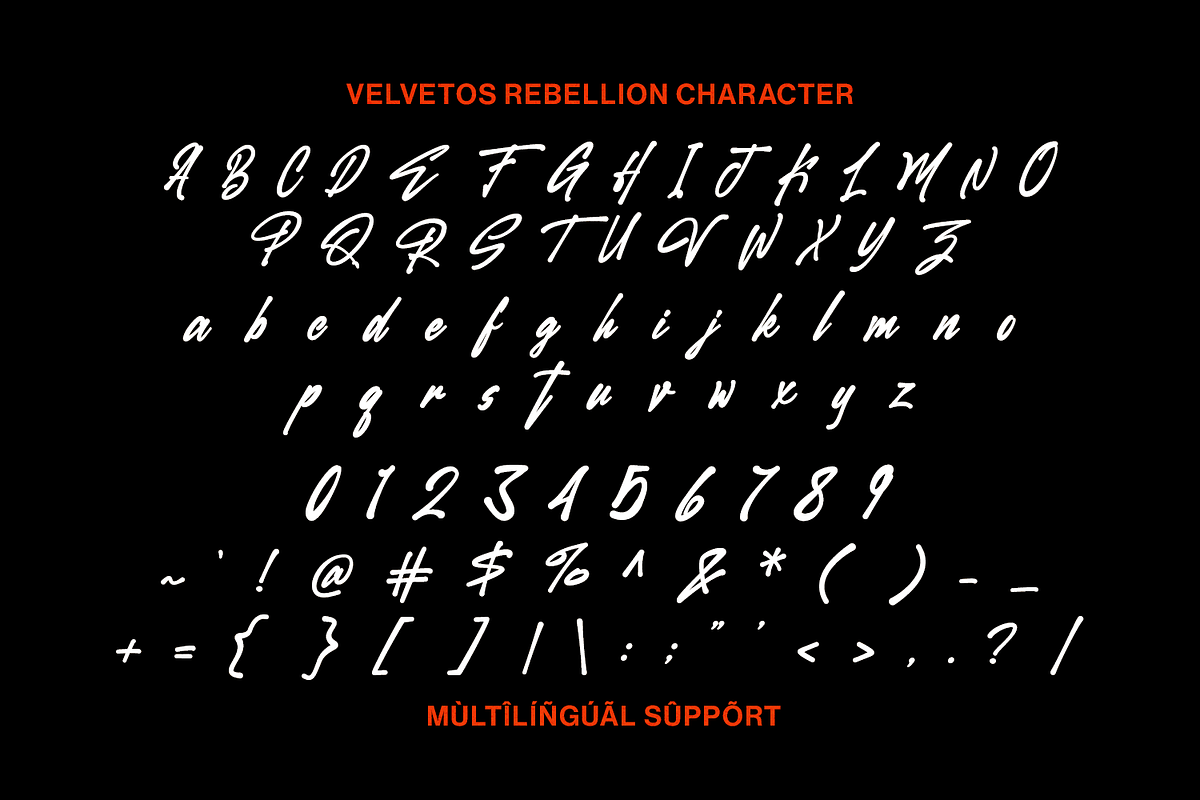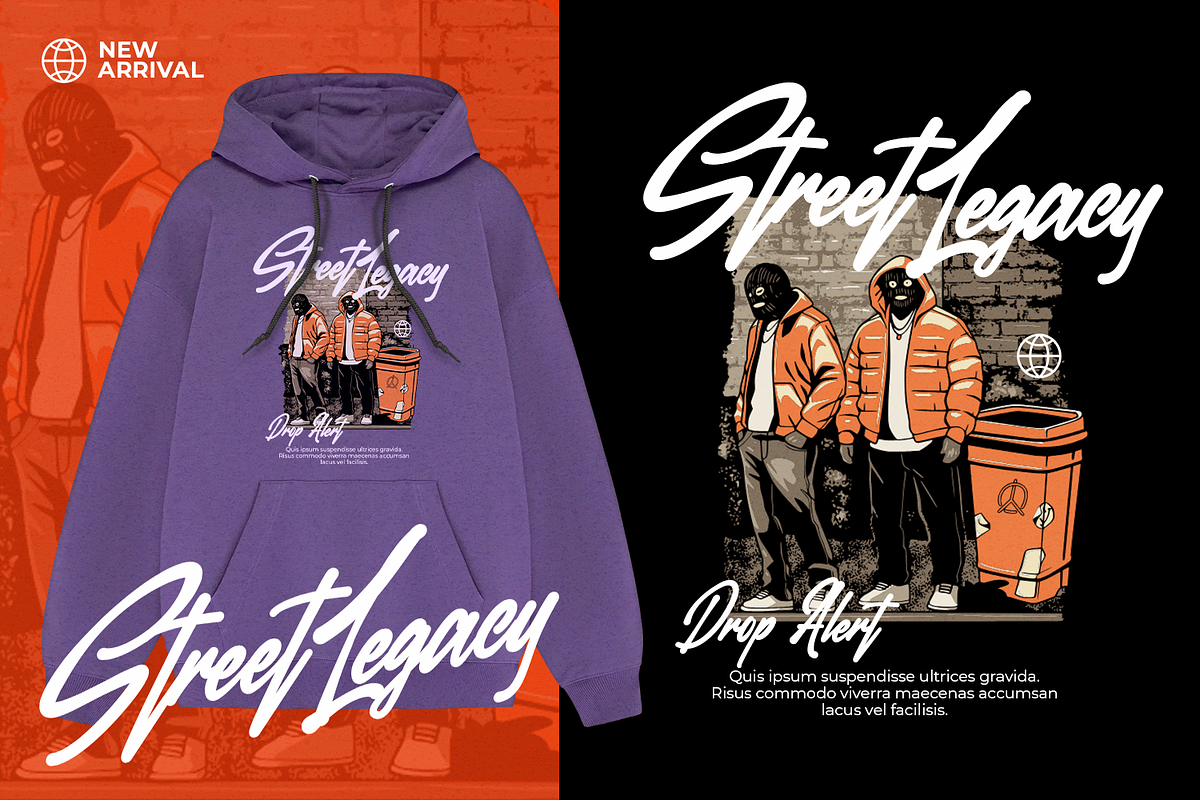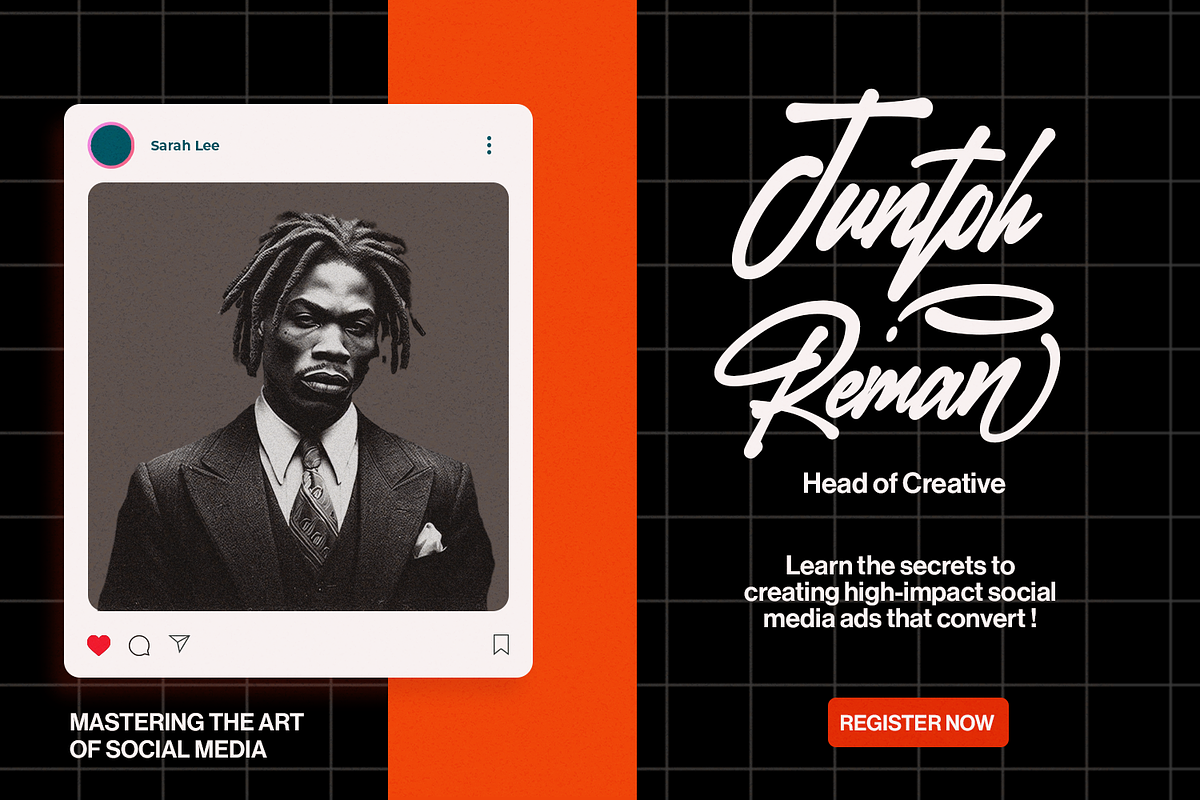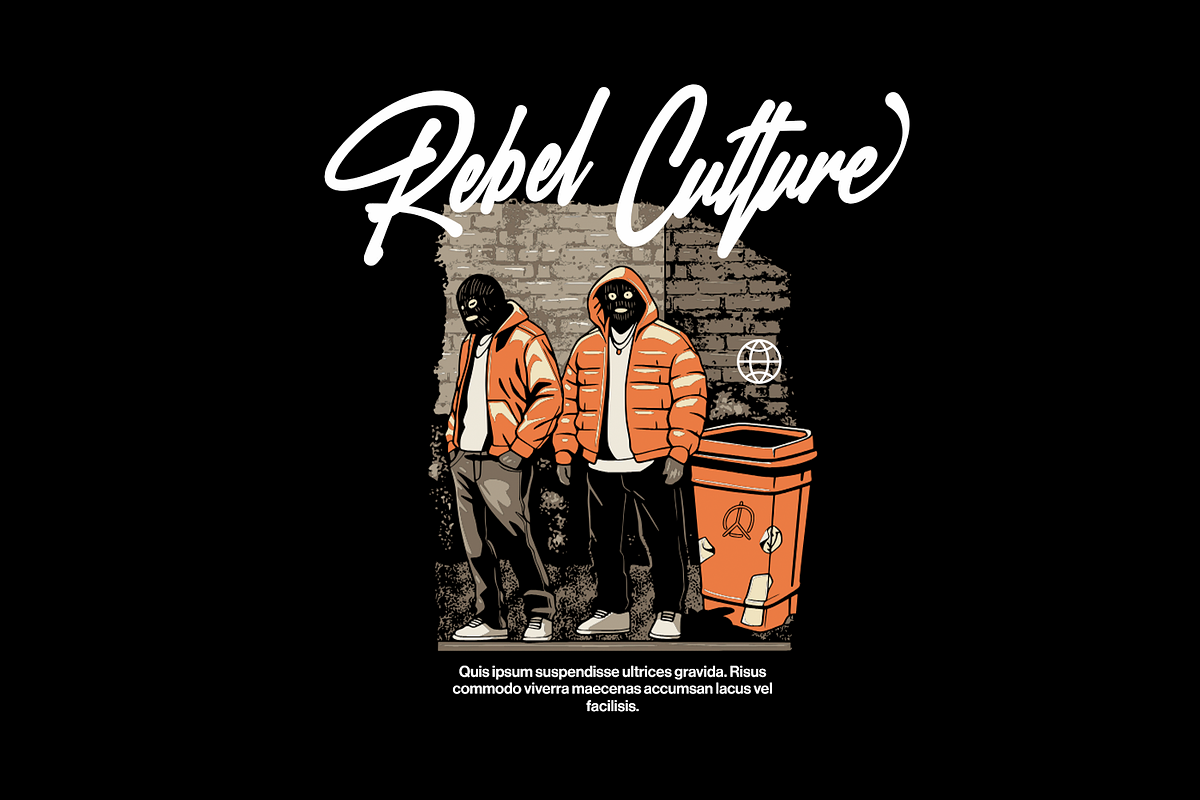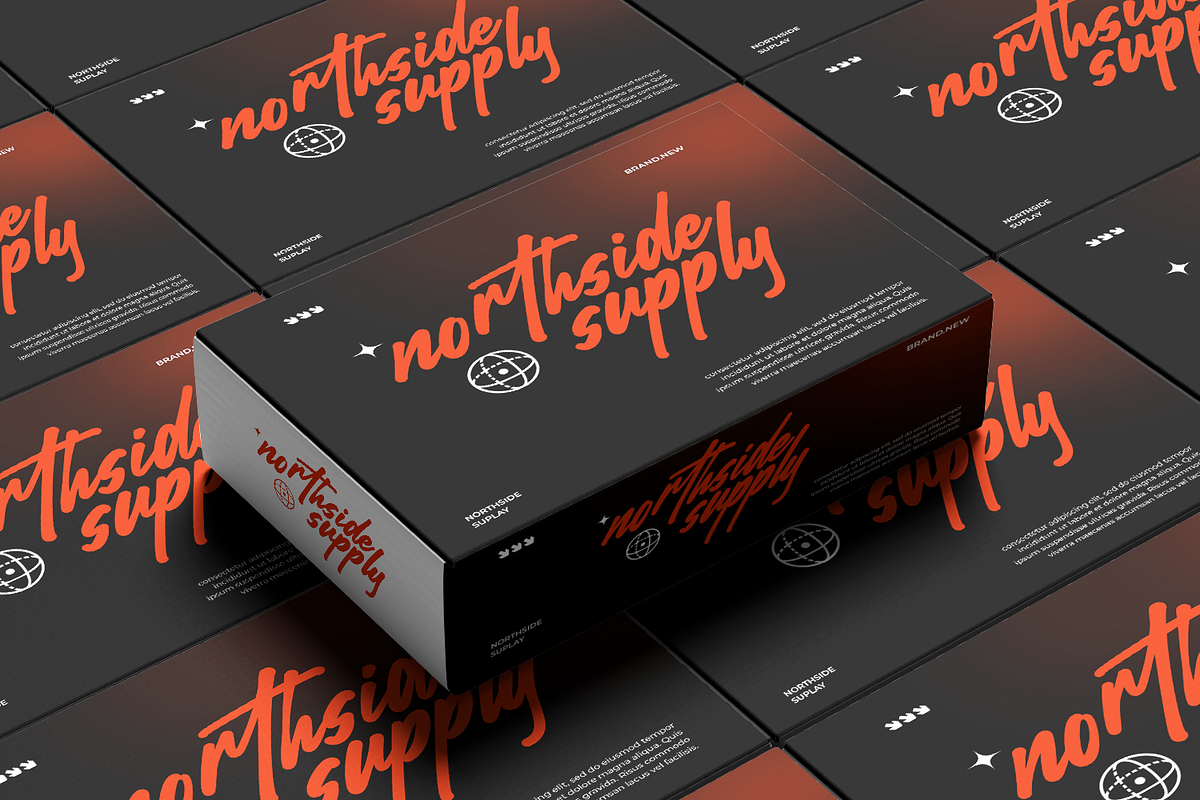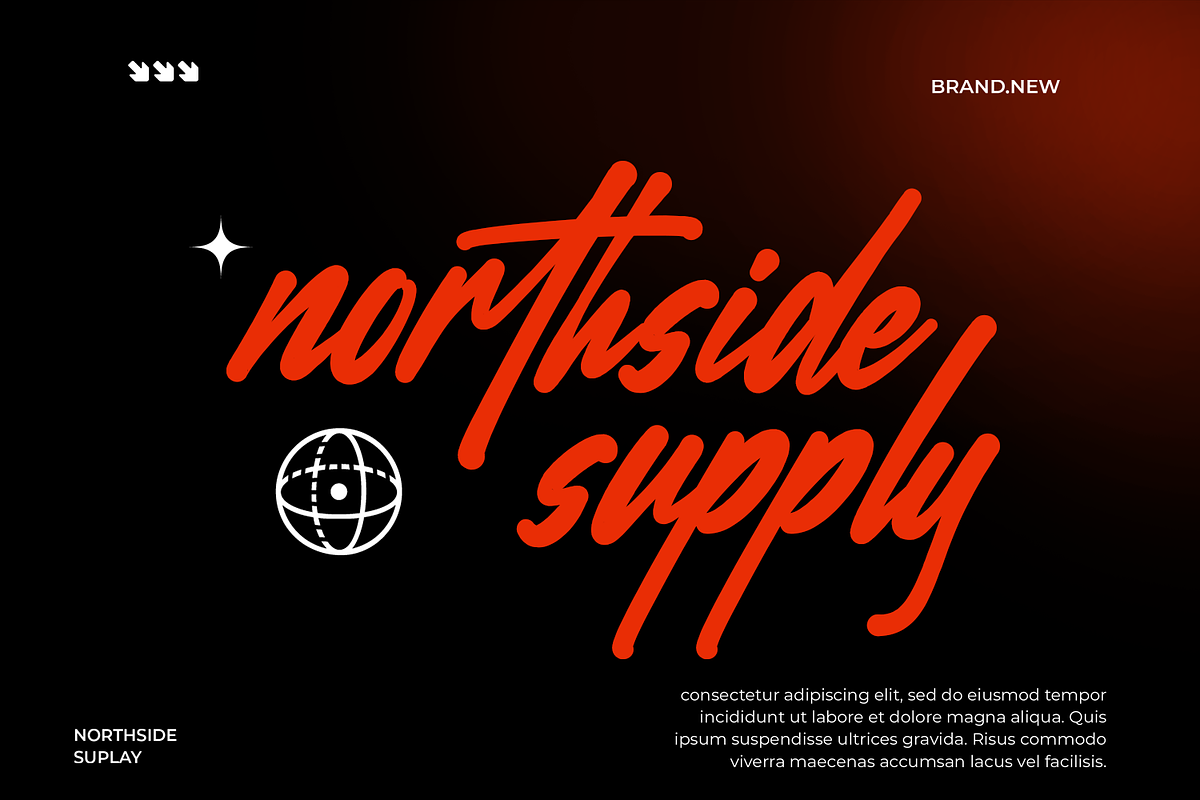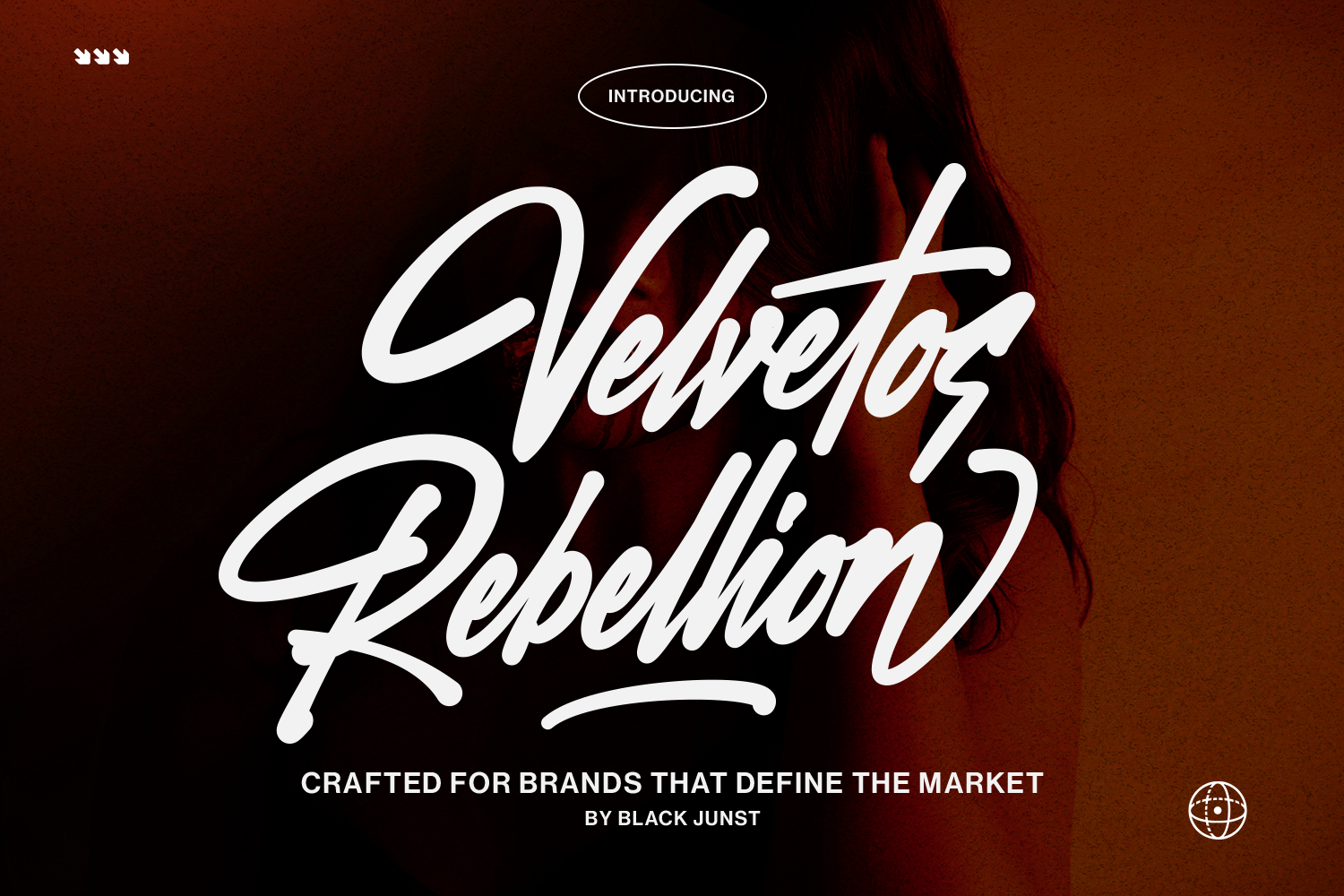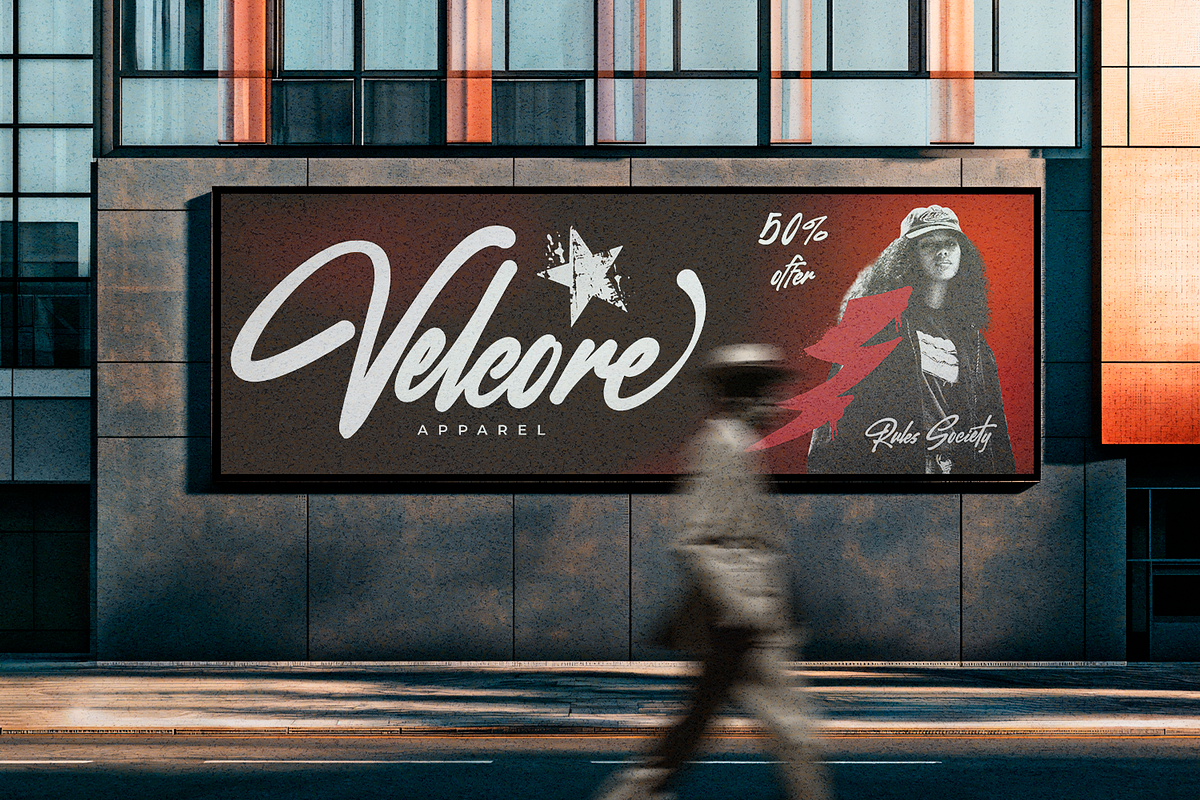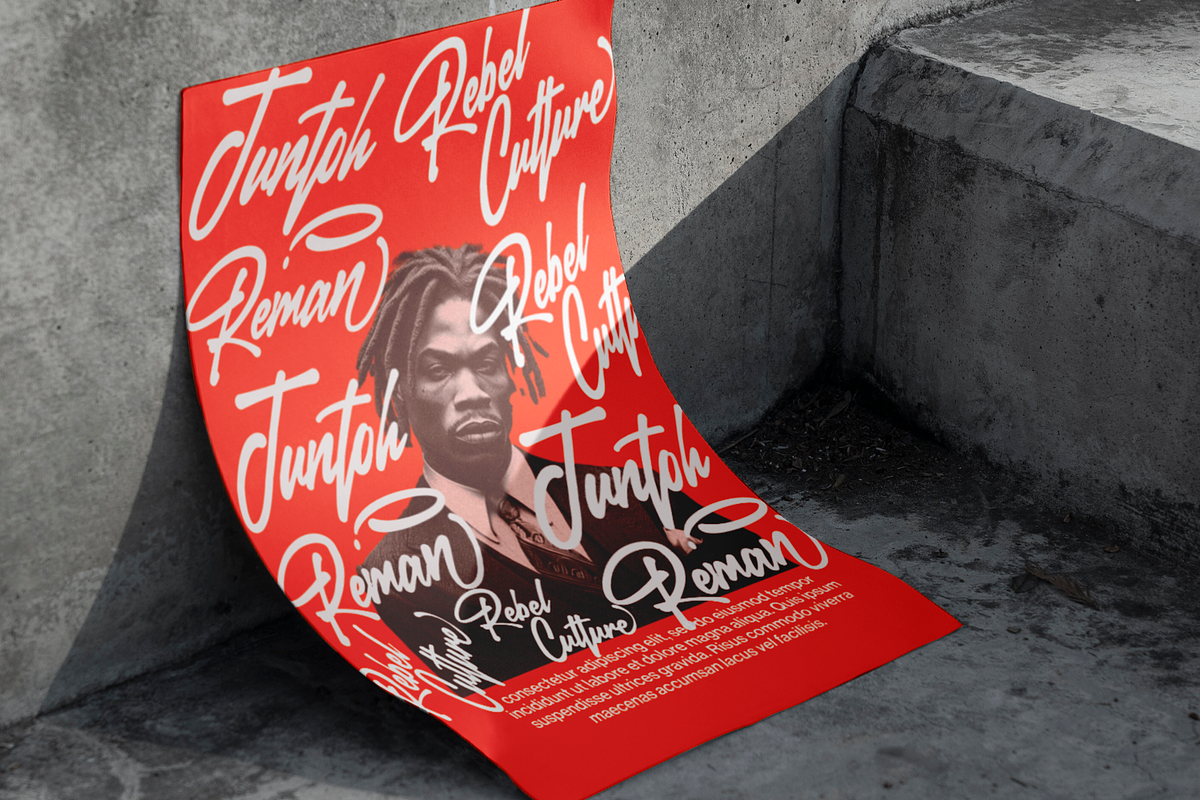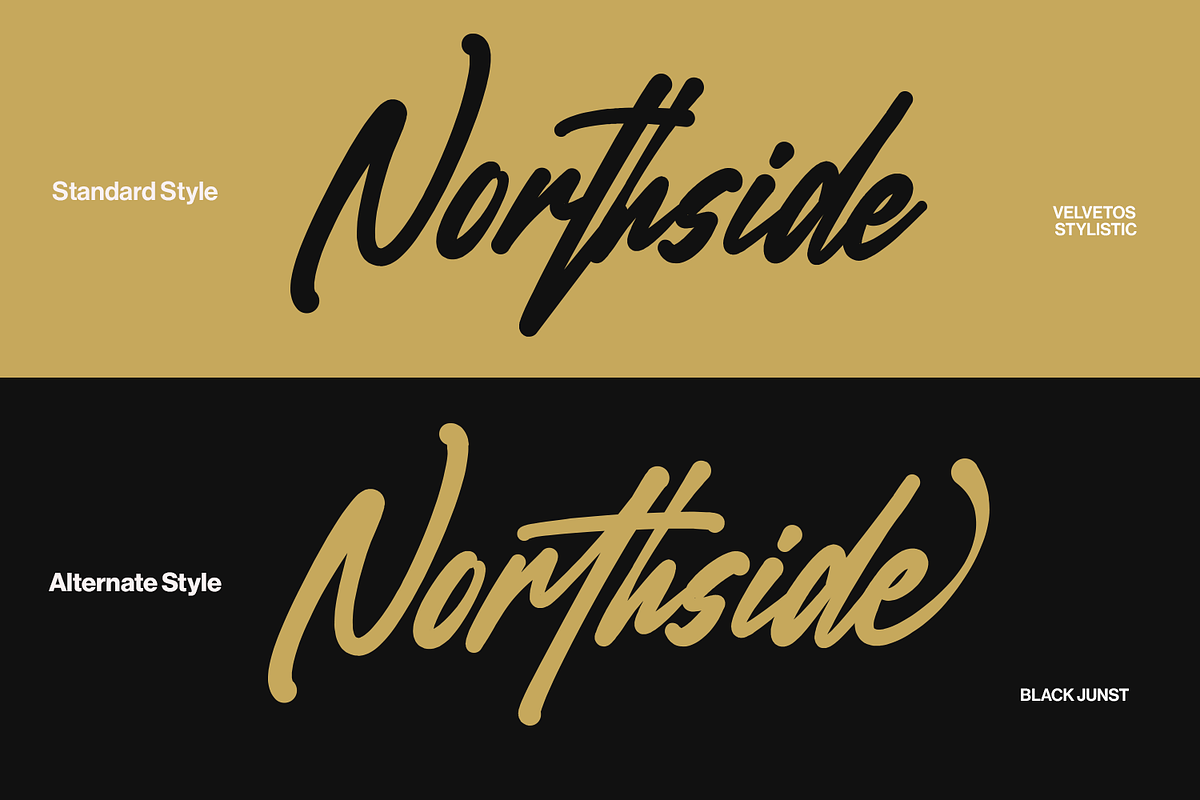
Velvetos Rebellion- Streetwear Font
Velvetos Rebellion is a premium bold street script designed for high-impact commercial branding.
Crafted with confident strokes and controlled flow, this typeface delivers a strong visual identity suitable for large-scale apparel production, fashion campaigns, retail branding, and global merchandise distribution.
Its bold construction ensures excellent readability across oversized prints, signage systems, packaging, digital campaigns, and high-volume manufacturing applications.
Fashion & Streetwear Brands
Commercial Apparel Production
Global Marketing Campaigns
Retail Store Signage
Merchandise & Packaging
Brand Identity Systems
Commercial Ready: Designed to perform consistently across print and digital environments, making it suitable for extended commercial usage and high-volume production.
-Uppercase & Lowercase
Alternates Style
Ligature
Swash
A signature script built for brands that lead, not follow.